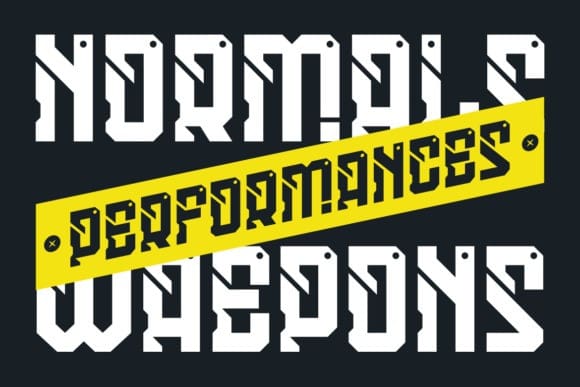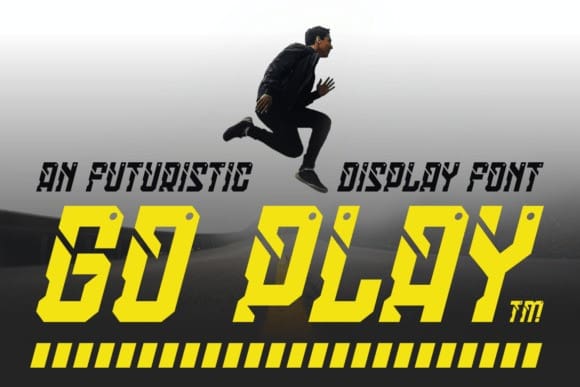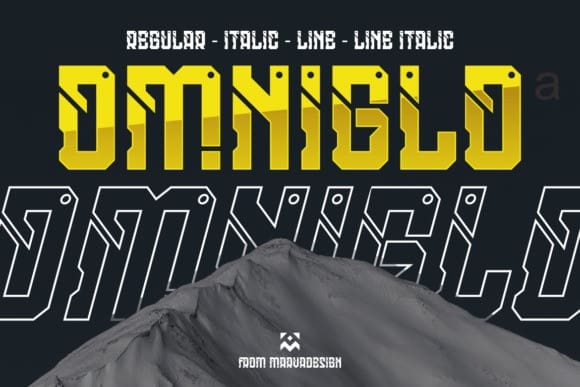
Omniglo Display Font
Omniglo Display Font is a modern, futuristic display font that transports designs into the realm of sleek innovation. With its avant-garde letterforms and high-tech aesthetic, it captures the essence of contemporary sophistication. Ideal for projects demanding a cutting-edge and futuristic vibe, Omniglo adds a bold and progressive allure to your designs.